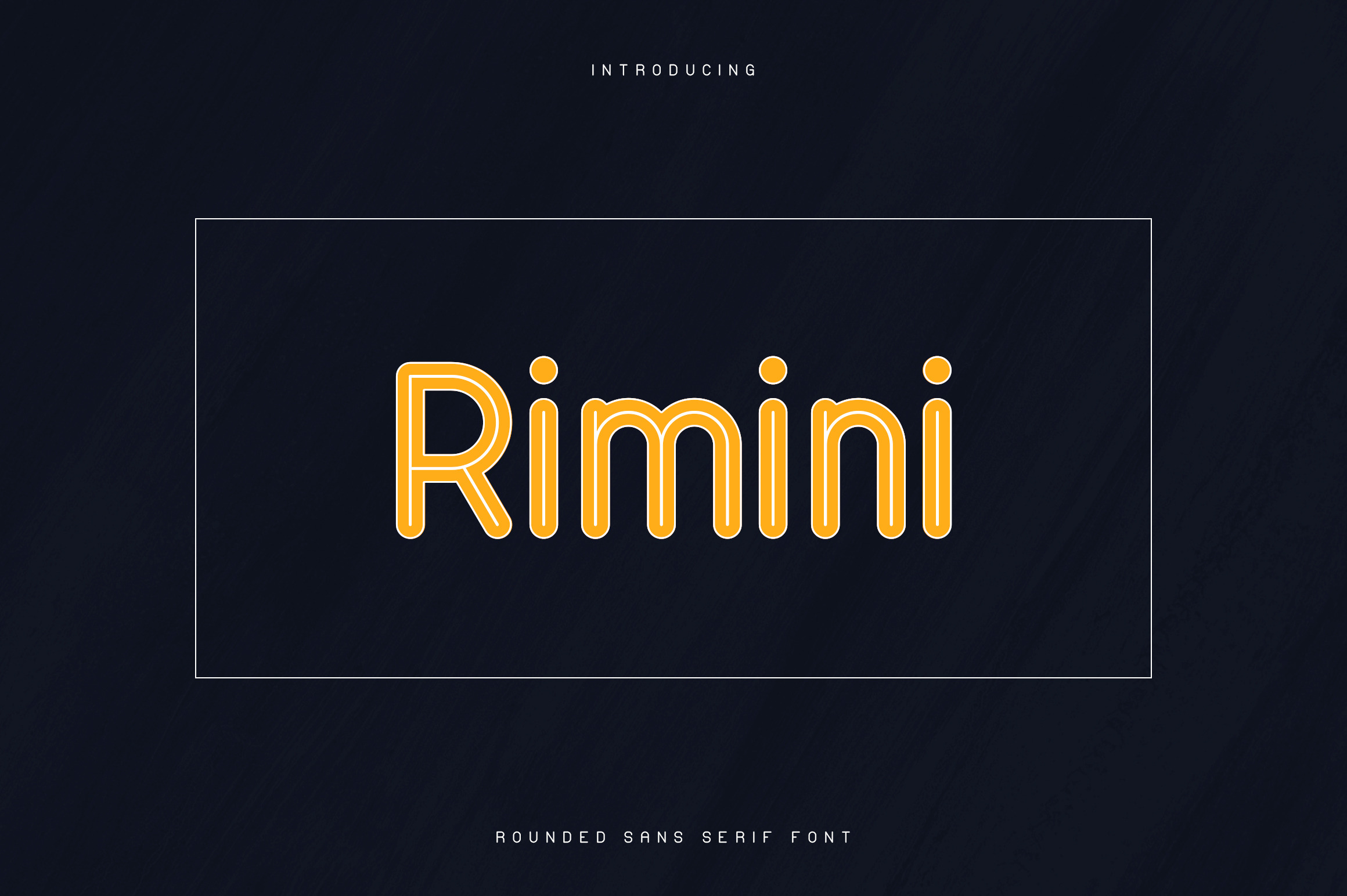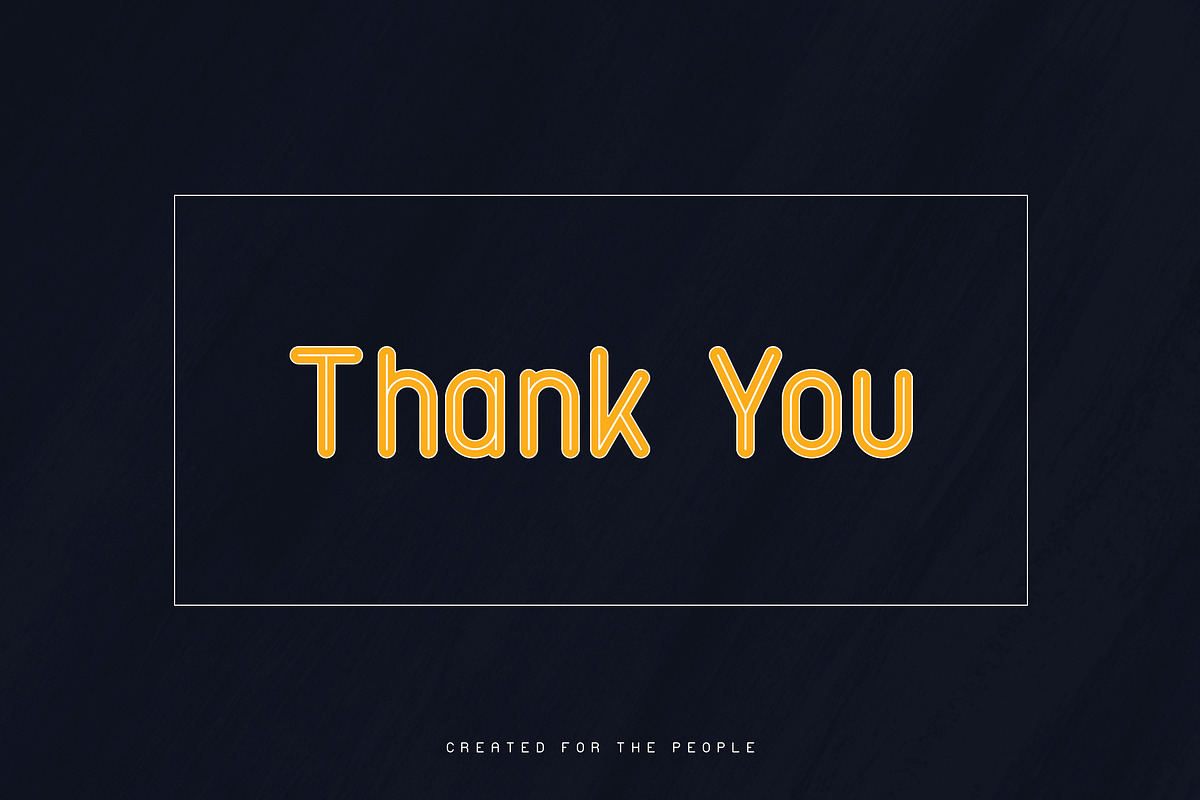
Rimini is clean, bold typeface with 7 fonts and multilingual support. It's a very versatile font that works great in large and small sizes.
Rimini is perfect for branding projects, home-ware designs, product packaging, magazine headers - or simply as a stylish text overlay to any background image.
- Uppercase,lowercase,numeral,punctuation & Symbol
- 6 Outline fonts